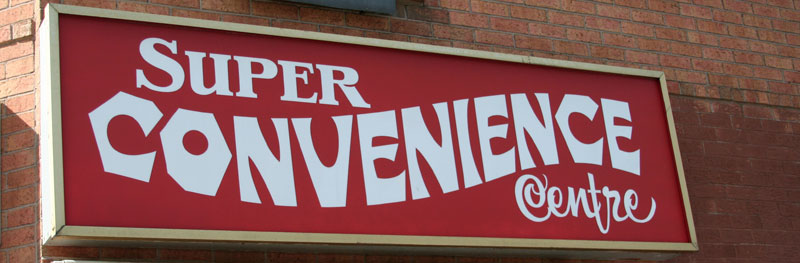
Super Convenience Centre
Who knew the word “convenience” could have so much personality? I spotted this sign in the Kensington Market area and its swooping energy makes me grin.
Stare long enough at the sly curves playing against crisp angles and you’ll start to feel woozy. That seven-sided “O” is a marvel!
I haven’t been inside the store and I’d be almost reluctant to enter. How could its contents possibly match the roller coaster exuberance of the sign?
Super convenience center this sign sure as it going on. Love your comment where it seems too good to be true and want to keep the illusion going .This is where I think the sly curve steps in.
Thanks Simon! I guess there’s a risk in creating a sign that over-promises, since it could lead to disappointment. Then again, there’s something touching about a store owner who is full of enthusiasm and insists on presenting the business to the world with pizzazz.
If I ever do visit Super Convenience Centre, I will be sure to report back!